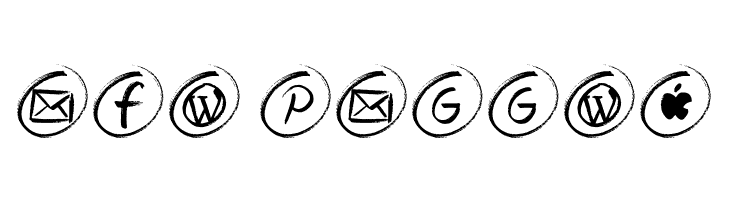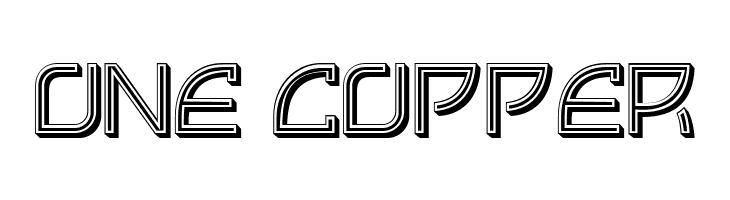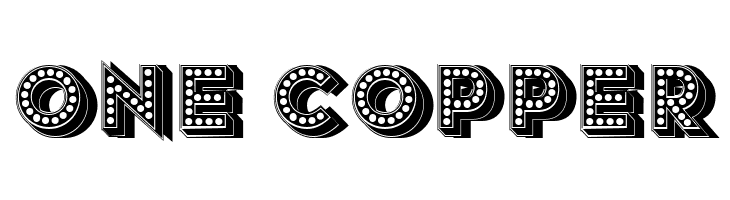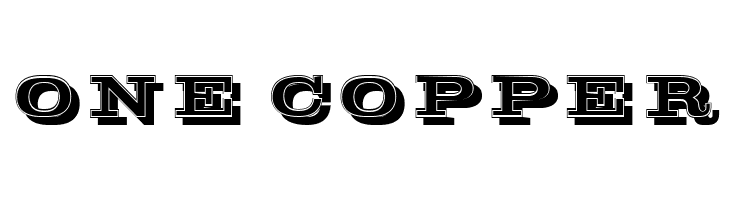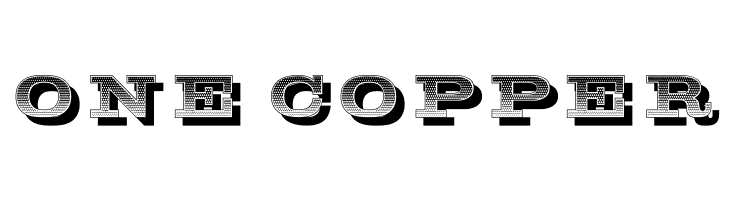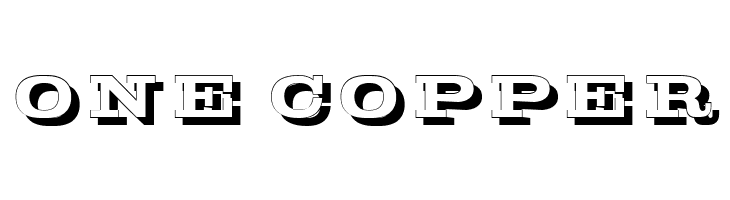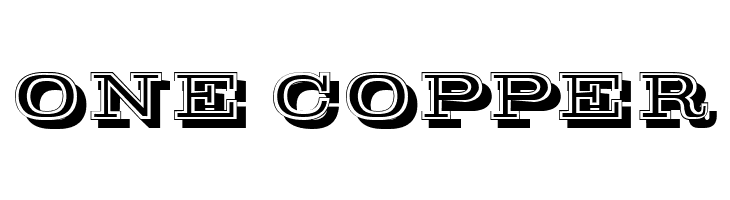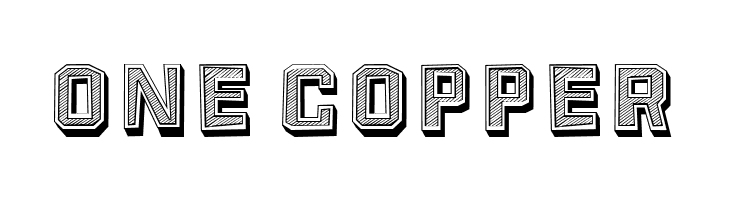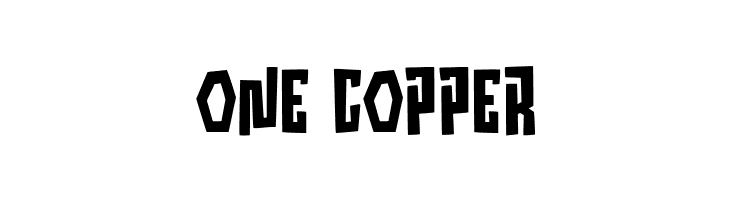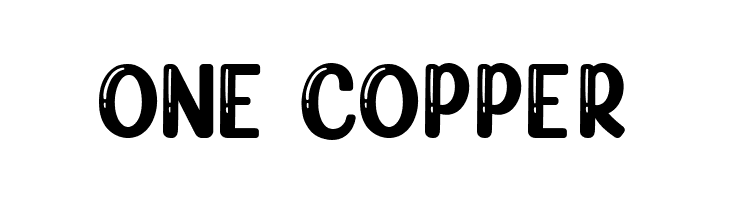
A tall, narrow, and modern font with clean lines and minimal curves.
A tall, narrow font with a modern, minimalist design and consistent stroke widths.
A bold, handwritten font with playful, rounded characters.
An elegant, decorative script font with intricate swirls and loops.
A lively and elegant script font with flowing, cursive letterforms.
A modern, cursive font with elegant loops and a handwritten feel.
Casual handwritten script font.
A bold, expressive handwritten font with fluid strokes and a modern style.
Playful decorative dingbat font with hand-drawn symbols and borders.
A bold, geometric font with high contrast and a modern, edgy style.
A playful, handwritten font with irregular, organic strokes and a casual vibe.
A playful, handwritten font with smooth, rounded strokes and a casual style.
A bold, playful font with rounded edges and a friendly appearance.
A playful, handwritten font with flowing, interconnected letters.
A bold, three-dimensional decorative font with intricate line work and shading.
A bold, futuristic font with a double-line geometric design.
A bold, decorative font with a shadow effect and dotted embellishments.
A playful and elegant script font with a handwritten touch, perfect for artistic projects.
Hand-drawn, grunge-style social media icon set with sketchy circular backgrounds.
A bold, italic font with a dynamic and modern style.
A bold, thick-stroked font with a strong, assertive presence.
A sophisticated, cursive script font with a flowing, elegant style.
A decorative script font with elegant swirls and artistic flair.
A lively and dynamic script font with fluid, connected letterforms and bold strokes.
A bold, three-dimensional font with a vintage, engraved look.
A playful and dynamic handwritten font with fluid strokes and a casual style.
A bold, collegiate-style font with double-line outlines and strong geometric shapes.
A bold, decorative slab serif font with a gradient effect for a 3D look.
A bold, three-dimensional font with a vintage shadow effect.
A bold, handwritten font with dynamic strokes and a playful, informal style.
( Fonts by Vladimir Nikolic - Personal-use only. For commercial use please contact owner. )
A bold, decorative font with a three-dimensional effect and geometric structure.
A bold, decorative serif font with a filled, shadowed design.
A playful, bold font with rounded edges and a bubbly, whimsical style.
A tall, narrow, and modern font with clean lines and uniform structure.
A bold, cursive font with a dynamic and flowing style.